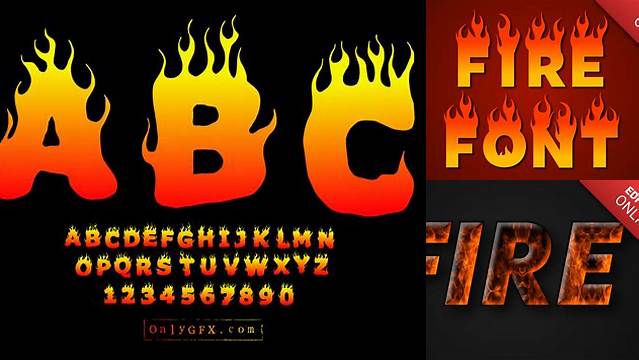
Hey guys! Ever wanted to add some serious sizzle to your designs? 🔥 You've come to the right place! In this article, we're diving deep into the world of stylish fire fonts and how you can snag them for free. From flaming logos to scorching posters, these fonts are the perfect way to make your text pop. So, buckle up and let's get started!
What are Stylish Fire Fonts?
Stylish fire fonts, at their core, are typefaces designed to mimic the appearance of flames. They often feature jagged edges, flickering effects, and a generally hot and fiery aesthetic. These fonts are perfect for designs that need to convey energy, passion, or intensity. Whether you're working on a video game title, a heavy metal album cover, or a promotional poster for a spicy food festival, a fire font can add that extra oomph you're looking for. The best fire fonts aren't just about the visual style; they also need to be legible and versatile. A great fire font should work in a variety of contexts and maintain its impact even at different sizes. This is why designers spend countless hours perfecting the details, ensuring that each glyph captures the essence of fire while remaining practical for everyday use. Think about the way flames dance and flicker; a good fire font will emulate this movement, creating a dynamic and captivating visual effect. The key is to find the balance between style and substance, making sure your font not only looks hot but also communicates your message effectively. There are tons of options out there, from bold and aggressive styles to more subtle and elegant interpretations of fire.
Free vs. Premium Fire Fonts
Okay, let's talk about the elephant in the room: free versus premium fire fonts. Free fire fonts can be a fantastic option, especially if you're just starting out or working on a personal project. There are many websites out there that offer a solid selection of free fonts, including some really cool fire styles. However, it's important to be aware of the limitations. Free fonts often come with fewer glyphs, meaning they might not support all the characters and symbols you need. They may also lack the polish and refinement of premium fonts, and sometimes the licensing can be restrictive. On the other hand, premium fire fonts usually offer a more comprehensive package. You can expect a full character set, multiple weights and styles, and often additional features like alternate glyphs and ligatures. Premium fonts are typically crafted by professional designers, ensuring a high level of quality and attention to detail. Plus, the licensing is generally more flexible, allowing you to use the font in commercial projects without worry. The price tag, of course, is the main downside. But if you're working on a project where quality and versatility are paramount, investing in a premium font can be well worth it. Ultimately, the choice between free and premium depends on your specific needs and budget. If you're just experimenting or need a font for a one-off project, a free option might suffice. But for professional work, a premium font often provides the best value and peace of mind. Don't hesitate to try out a few free fonts to get a feel for what you like, and then consider investing in a premium option when you're ready to take your designs to the next level. The difference in quality can be significant, and the right font can truly elevate your work.
Using Fire Fonts in Graphic Design
When it comes to graphic design, using stylish fire fonts can really make your work stand out. These fonts are perfect for projects where you want to convey energy, intensity, or a sense of excitement. Think about using them for movie posters, video game titles, or even advertisements for hot and spicy foods. The key to using fire fonts effectively is to consider the context of your design. A bold, fiery font might be perfect for a rock concert poster, but it could feel out of place in a more formal setting. Think about the overall tone and message of your project, and choose a font that complements it. Don't be afraid to experiment with different font combinations. A fire font can look stunning when paired with a clean, minimalist sans-serif font. This creates a visual contrast that draws attention to the fiery text while maintaining a sense of balance. When using fire fonts, pay close attention to the size and spacing of your text. These fonts often have intricate details that can get lost if the text is too small. Make sure the text is large enough to be legible, and adjust the letter spacing and line height to ensure readability. Color is another crucial element to consider. Fire fonts naturally lend themselves to warm colors like red, orange, and yellow. But don't feel limited by these colors. Experiment with different color palettes to see what works best for your design. A fiery font in a cool blue or purple can create a striking and unexpected effect. Remember to use fire fonts sparingly. Overusing them can make your design feel cluttered and overwhelming. Instead, use them strategically to highlight key words or phrases. In a logo design, a fire font can be a powerful way to communicate your brand's personality. But make sure the font is legible and scalable. A logo needs to look good at both large and small sizes, so choose a font that maintains its impact in various contexts. With a little creativity and a good understanding of design principles, you can harness the power of fire fonts to create stunning visuals that captivate your audience. So go ahead, ignite your designs!
Fire Fonts for Logos and Branding
Stylish fire fonts can be an absolute game-changer when it comes to logos and branding, guys. Think about it – a logo is the face of your brand, and a fire font can instantly inject it with energy, passion, and a memorable edge. But here's the thing: using a fire font for your logo is not just about slapping on a cool-looking typeface. It's about strategically aligning the font's vibe with your brand's personality. For example, if you're building a brand around hot sauces or spicy snacks, a fire font is a no-brainer. It visually communicates the heat and intensity of your products right off the bat. Similarly, if your brand is in the realm of action sports, extreme adventures, or even gaming, a fire font can convey the adrenaline and excitement you want to associate with your brand. However, you need to tread carefully. Not every brand benefits from a fire font. If you're in a field that requires a sense of trust, stability, or sophistication – like finance, healthcare, or legal services – a fire font might come across as too aggressive or even unprofessional. It's all about understanding your target audience and the message you want to send. When you do decide to use a fire font for your logo, ensure it's legible and scalable. A logo needs to look crisp and clear whether it's on a business card or a billboard. A super intricate fire font might look amazing in a large format, but it could become a blurry mess at smaller sizes. Simplicity is key here. Also, consider the font's versatility. Your logo will appear in various contexts – on your website, social media, packaging, and marketing materials. Make sure the fire font works well across all these platforms. The best fire font logos often pair the fiery typeface with a clean, contrasting font for other text elements, like your tagline or brand name. This creates a visual hierarchy and ensures that the logo doesn't become too overwhelming. Remember, your logo is the cornerstone of your brand identity. Choosing the right font, especially a bold one like a fire font, is a crucial step in building a brand that truly stands out and leaves a lasting impression.
Best Fire Fonts for Different Projects
Alright, let's get specific! You're probably wondering, "Okay, these stylish fire fonts sound cool, but which ones are actually the best for my project?" Well, the truth is, the best fire font is subjective and depends entirely on the specific vibe you're going for. But fear not, I'm here to break down some top contenders and how they might fit into different project scenarios. If you're working on a high-octane video game title, you'll likely want a fire font that screams energy and intensity. Think bold, jagged edges, and maybe even some flickering effects. Fonts like "Inferno" or "Magma" are great starting points. These fonts are designed to grab attention and convey a sense of urgency and excitement. For heavy metal album covers or rock concert posters, you might lean towards a more aggressive and edgy fire font. Something with sharp angles, distorted letterforms, and a generally menacing feel. "Ashes" or "Burnout" could be your go-to options here. These fonts are all about raw power and rebellion. Now, if you're designing something for a spicy food festival or a hot sauce brand, you'll want a fire font that's both fiery and fun. A font that evokes heat without being too intimidating. "Scorched" or "Ember" might be just what you need. These fonts often have a more playful twist, incorporating rounded edges or quirky details. For fantasy-themed projects, like book covers or role-playing games, you can explore fire fonts that have a more mystical or ancient feel. Think fonts with intricate details, swashes, and a touch of elegance. "Dragonfire" or "Phoenix" could be perfect choices. These fonts blend the intensity of fire with a sense of magic and wonder. And if you're working on a logo or branding project, remember the importance of scalability and legibility. Choose a fire font that's bold enough to make a statement but also clear and readable at smaller sizes. Fonts like "Heatwave" or "Blaze" are versatile options that work well in various contexts. Ultimately, the best fire font is the one that perfectly captures the spirit of your project. Don't be afraid to experiment and try different options until you find the perfect fit. And remember, you can always tweak and customize a font to make it truly your own.
How to Customize Fire Fonts
So, you've downloaded a stylish fire font, but it's not quite perfect? No problem! The beauty of fonts is that you can often customize them to fit your specific needs. Let's dive into some ways you can tweak those flames and make your text truly unique. One of the most basic ways to customize a fire font is by adjusting its size and spacing. A larger font size will naturally make the fiery details more prominent, while tighter letter spacing can create a more compact and intense look. Play around with these settings to see how they affect the overall impact of your text. Color is another powerful tool for customization. While fire fonts often look great in warm colors like red, orange, and yellow, don't be afraid to experiment with other hues. A fiery font in a cool blue or purple can create a striking and unexpected effect. You can also use gradients or color overlays to add depth and dimension to your text. Software like Adobe Photoshop and Illustrator offer a wide range of effects that can enhance fire fonts. You can add glows, shadows, and textures to make your text appear even more realistic and dynamic. Experiment with different blending modes to achieve unique and interesting results. Another way to customize fire fonts is by adding your own hand-drawn elements. You can incorporate flames, sparks, or smoke trails to create a more personalized and organic look. This is a great way to make your text stand out and add a touch of originality. If you're feeling ambitious, you can even edit the individual glyphs of a fire font using font editing software. This allows you to fine-tune the details of each letterform and create a truly custom typeface. However, this requires some technical knowledge and can be quite time-consuming. Remember, the goal of customization is to enhance the existing qualities of the fire font while adding your own personal touch. Don't go overboard with effects or modifications, as this can make the font look cluttered or illegible. The key is to find a balance between style and substance, creating text that's both visually striking and easy to read. With a little creativity and experimentation, you can transform a stock fire font into a masterpiece that perfectly captures your vision.
Combining Fire Fonts with Other Fonts
Using a stylish fire font is like adding a spicy ingredient to your design – it can bring the heat, but you need to balance it with other flavors to create a truly delicious dish! When it comes to typography, this means understanding how to combine fire fonts with other typefaces to achieve a harmonious and effective visual composition. The first rule of thumb is contrast. Fire fonts are inherently bold and attention-grabbing, so pairing them with a clean and understated font is often a winning strategy. Think about a classic sans-serif font like Helvetica or Arial, or a simple serif font like Times New Roman. These fonts provide a neutral backdrop that allows the fire font to shine without overwhelming the design. Another approach is to use a fire font for headlines or titles and a more legible font for body text. This creates a clear visual hierarchy and ensures that your message is easy to read. Imagine a movie poster with a fiery title and a concise synopsis in a clean sans-serif font – it's a classic combination that works beautifully. When choosing a font to pair with a fire font, consider the overall tone and style of your project. If you're designing something with a modern and edgy feel, a geometric sans-serif font like Futura or Gotham could be a great choice. For a more vintage or rustic vibe, a slab-serif font like Rockwell or Courier might be a better fit. It's also important to think about the weight and spacing of the fonts. If your fire font is particularly bold and dense, you might want to choose a lighter weight for your secondary font to create a sense of balance. Similarly, if your fire font has a lot of intricate details, you might want to increase the letter spacing of your secondary font to improve readability. Don't be afraid to experiment with different font combinations. Try out a few options and see what works best for your design. You can use online tools like FontPair or Typewolf to get inspiration and discover interesting font pairings. Remember, the goal is to create a visual harmony between your fonts. The fire font should be the star of the show, but the supporting font should play its part in conveying your message effectively. With a little practice and a keen eye for detail, you can master the art of font pairing and create designs that truly ignite!
Creating a Fire Text Effect in Photoshop
Alright, let's get our hands dirty and dive into some design software! If you're serious about using stylish fire fonts, knowing how to create a fire text effect in Photoshop is a must-have skill. This technique allows you to transform any font into a blazing masterpiece, giving you full control over the look and feel of your fiery text. The process might seem a bit intimidating at first, but trust me, it's totally doable, and the results are 🔥! First, you'll need to open Photoshop and create a new document. Choose a dark background color, as this will make the fire effect pop. Then, type out your text using your chosen fire font. It's best to use a bold font for this effect, as it will give the fire more surface area to work with. Once you have your text layer, you'll want to rasterize it. This converts the text into a pixel-based image, allowing you to apply various effects and filters. To rasterize the layer, right-click on it in the Layers panel and select "Rasterize Type." Now comes the fun part! We're going to add some layer styles to give the text its fiery appearance. Start by adding a